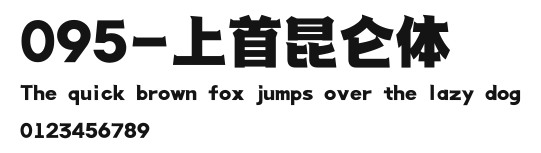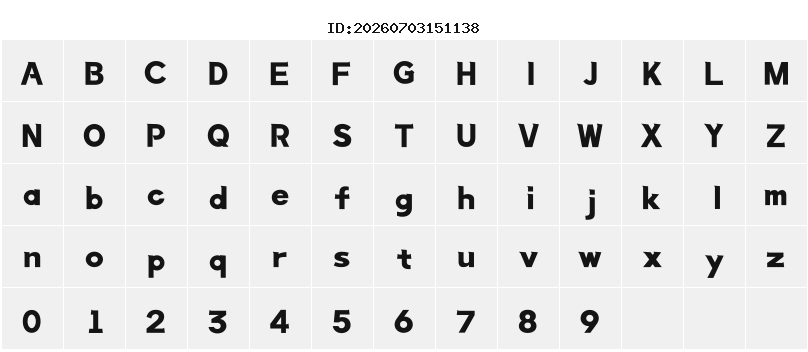
095-上首昆仑体 Preview
• Font Name: 095-上首昆仑体
• Font ID: 095-SSKunLunTi:Version 1.30
• Full Font Name: 095-上首昆仑体
• Version: Version 1.30 December 25, 2023
• PostScript Name: 095-SSKunLunTi
• Character Count: 7569
• Manufacturer: 上首造字
About 095-上首昆仑体.ttf
095-上首昆仑体.ttf is a modern, elegant sans-serif font designed for ultimate readability and visual harmony. Perfect for branding, headlines, web design, and print materials.